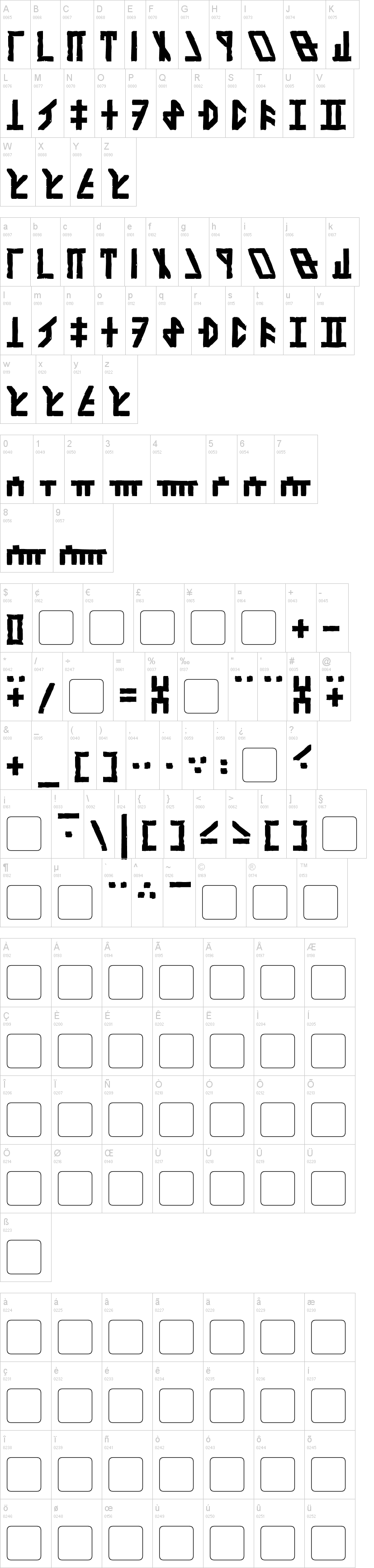
Note of the authorThis stone-like runic typeface is based on the dwarven fantasy script from Wizards of the Coast's "Forgotten Realms" setting. Includes all canon glyphs.